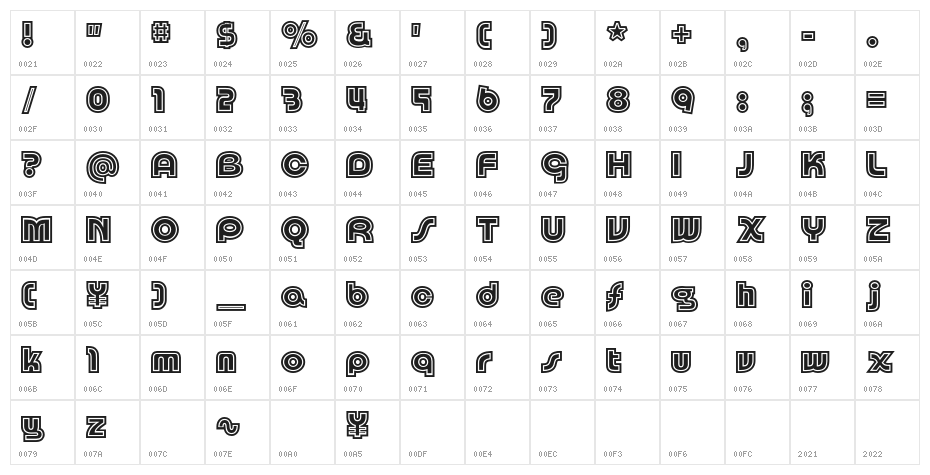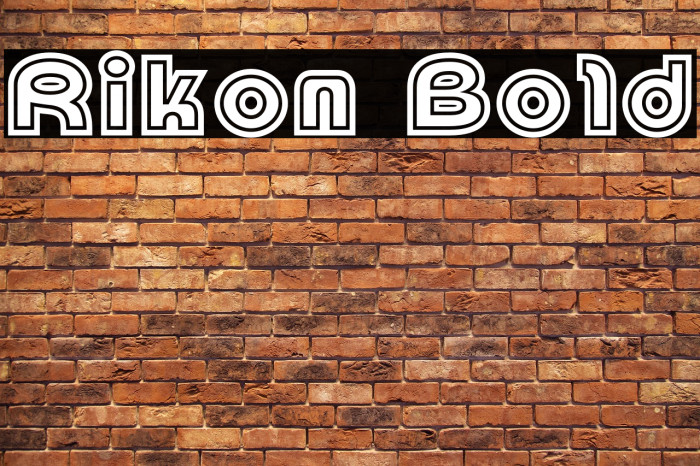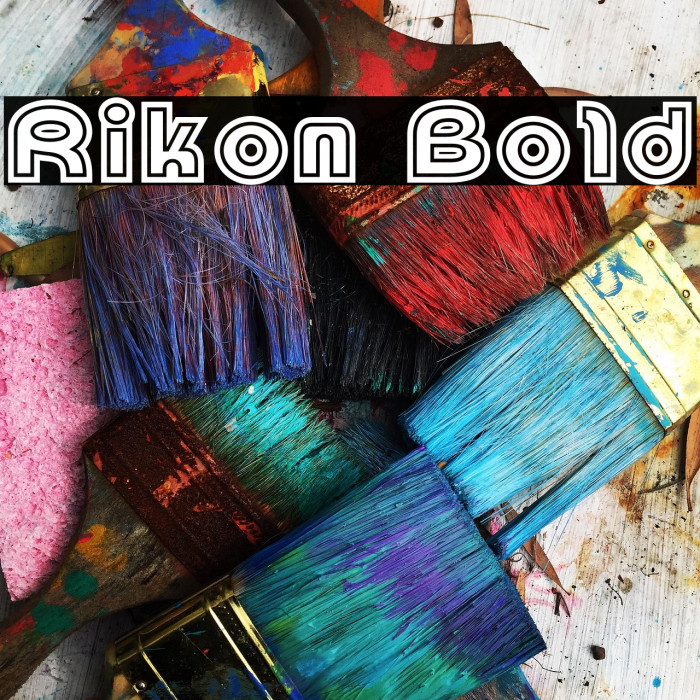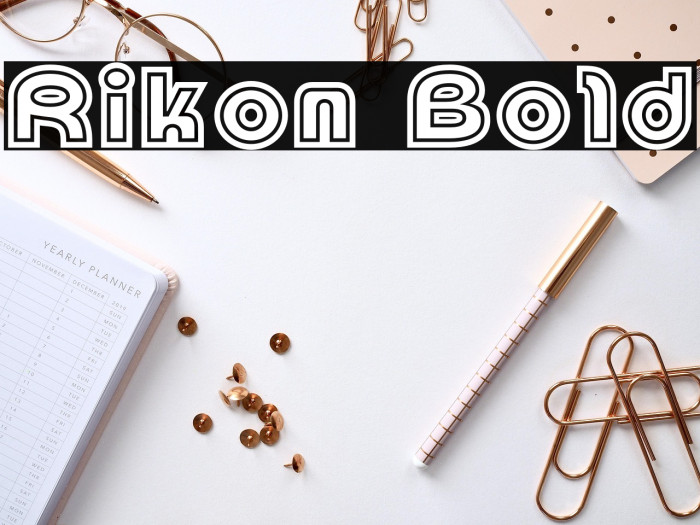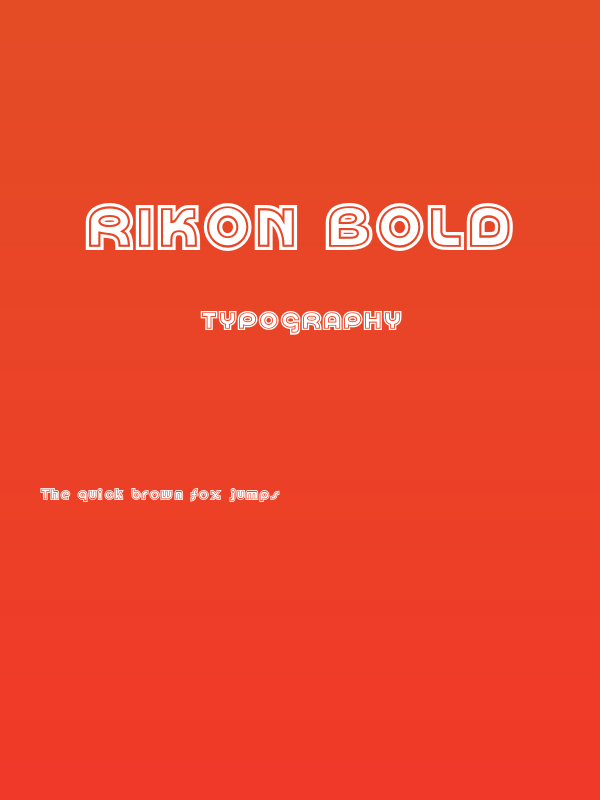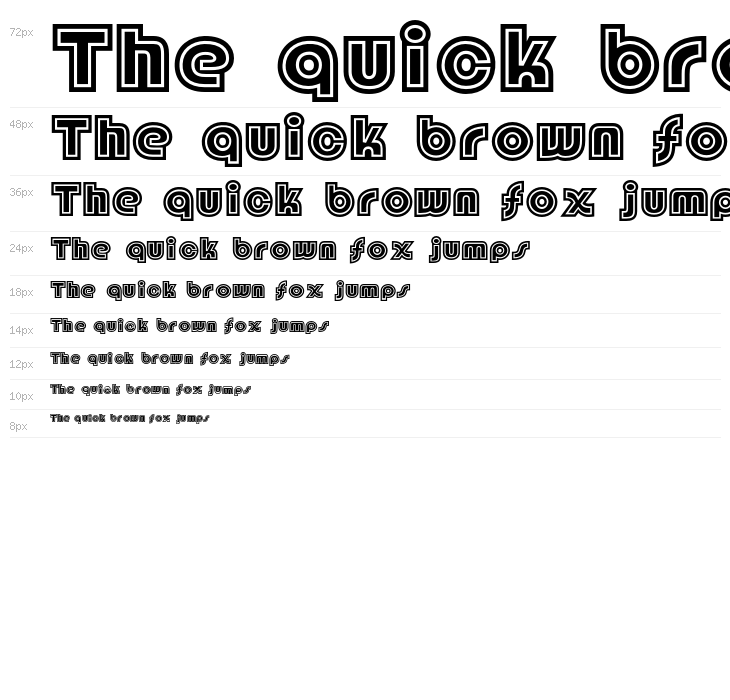
Rikon Bold Font
Rikon Bold Description
This font features a bold, geometric style with a double-line outline that gives it a striking, dimensional appearance. The characters are uniformly wide, with a consistent stroke width that emphasizes its boldness. The uppercase and lowercase letters maintain a uniform height, contributing to a cohesive and structured look. The numerals and special characters follow the same design principles, ensuring visual harmony across all elements. The font's design is modern and eye-catching, making it ideal for projects that require a strong visual impact.
| Proposed Projects | Ideal for headlines, posters, branding, and any design needing a bold statement. |